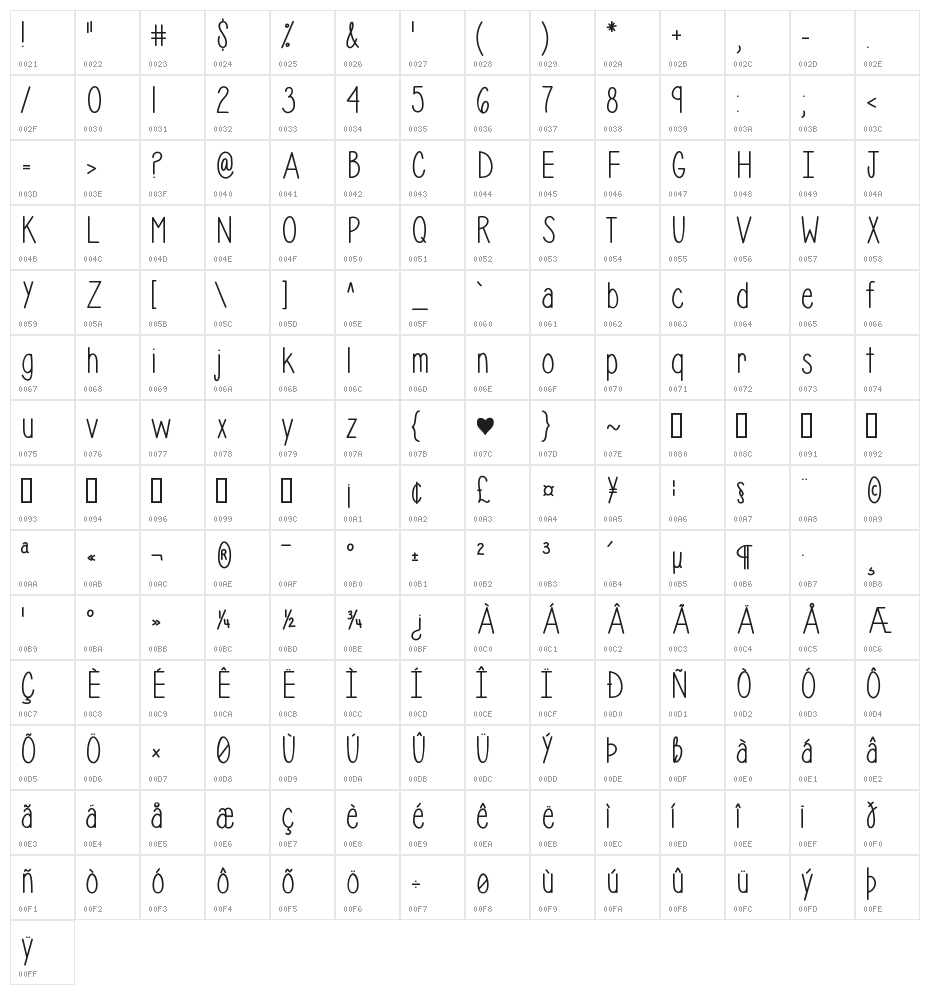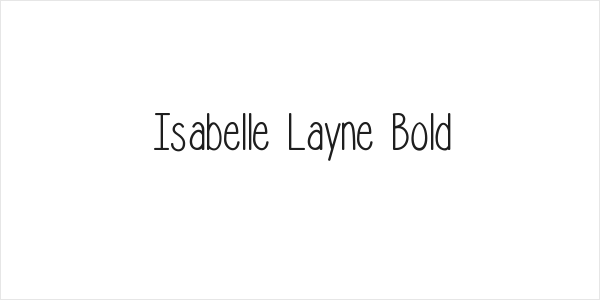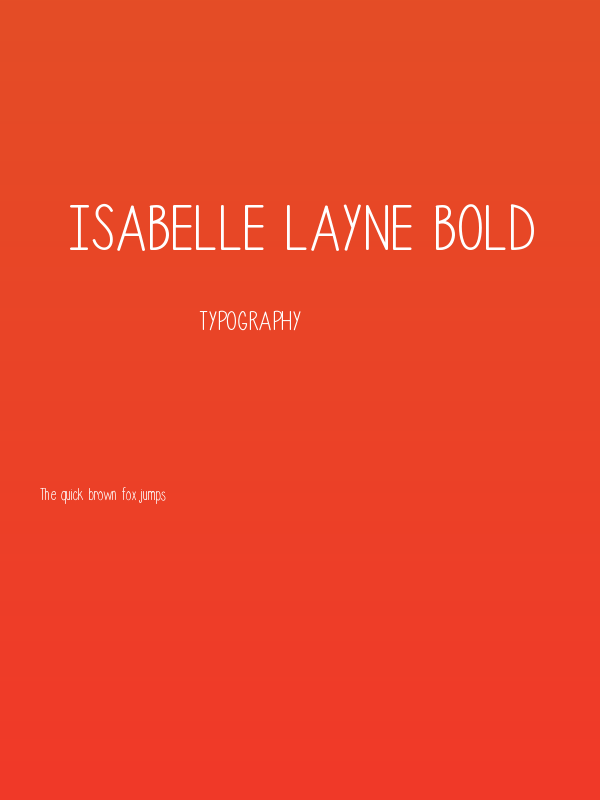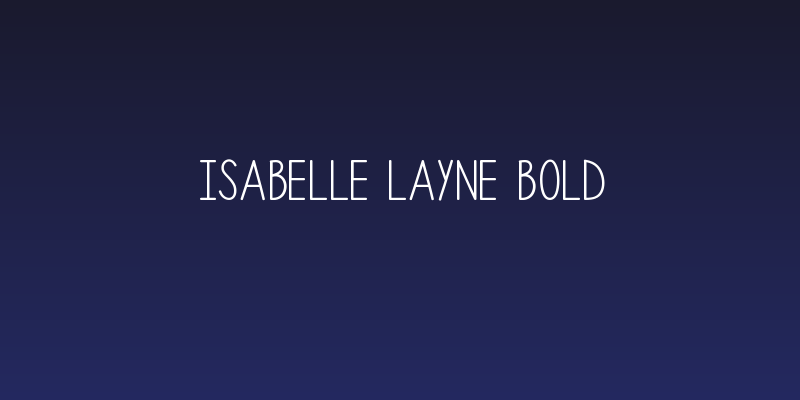
Isabelle Layne Bold Font
Isabelle Layne Bold Description
This font features a playful and modern design with a handwritten feel. The characters are tall and narrow, with rounded edges that give a friendly and approachable appearance. The uppercase letters maintain a consistent height, while the lowercase letters have a slight variation in height, adding to the casual aesthetic. The numerals are well-proportioned and align seamlessly with the alphabetic characters. Special characters are included, maintaining the same playful style. This font is versatile, suitable for projects that require a touch of personality and creativity.
| Proposed Projects | Ideal for children's books, casual branding, greeting cards, and playful social media graphics. |